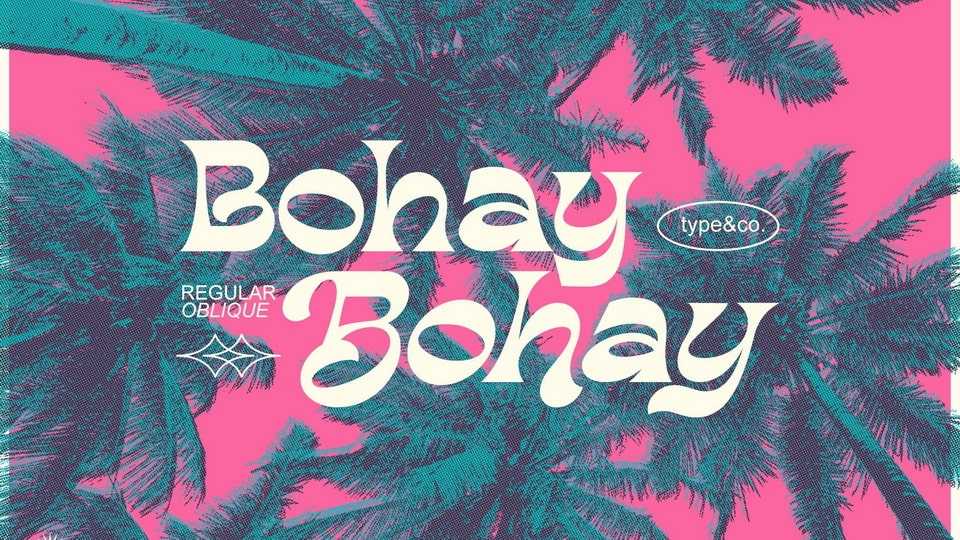
Download Bohay font, a display typeface made to catch your eye. Bohay is curved and fun, ready to be used for any project you have in mind.
Designer: Type and Co.